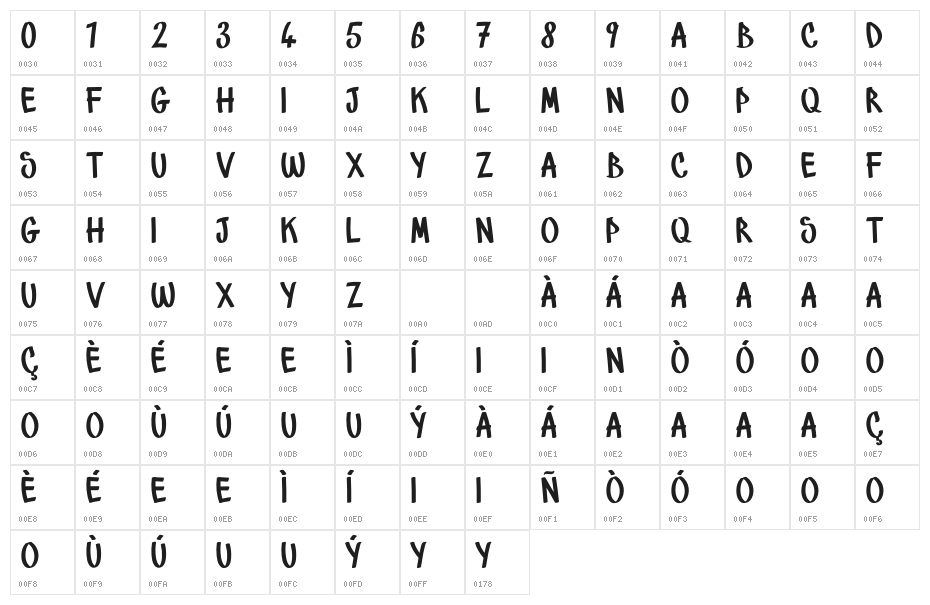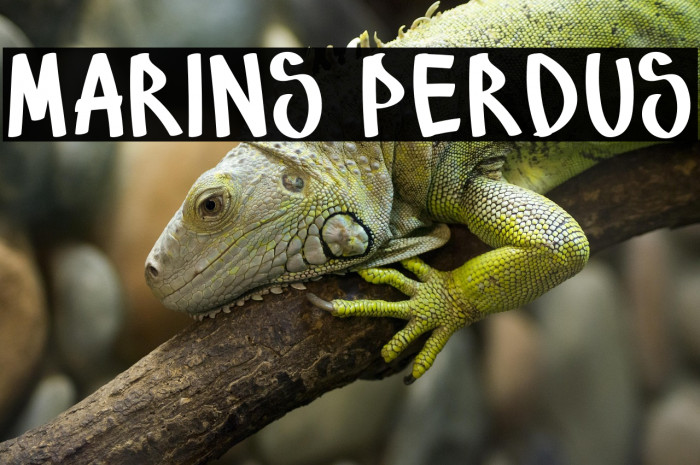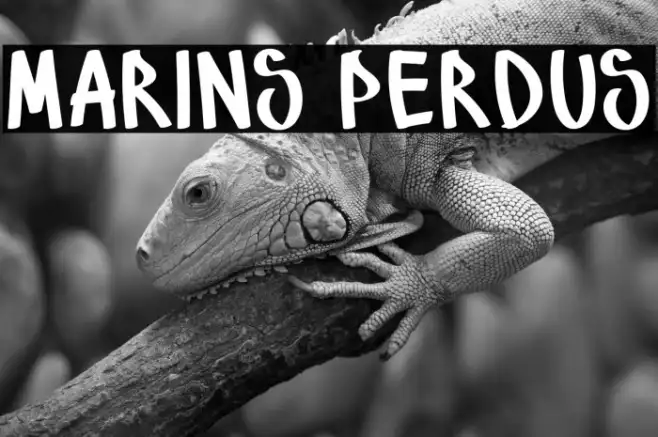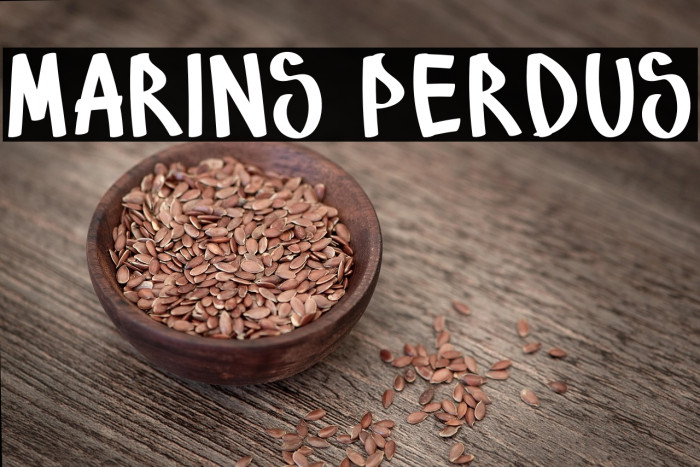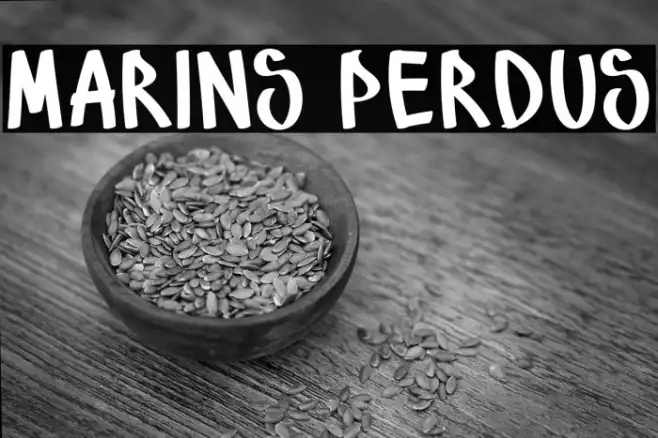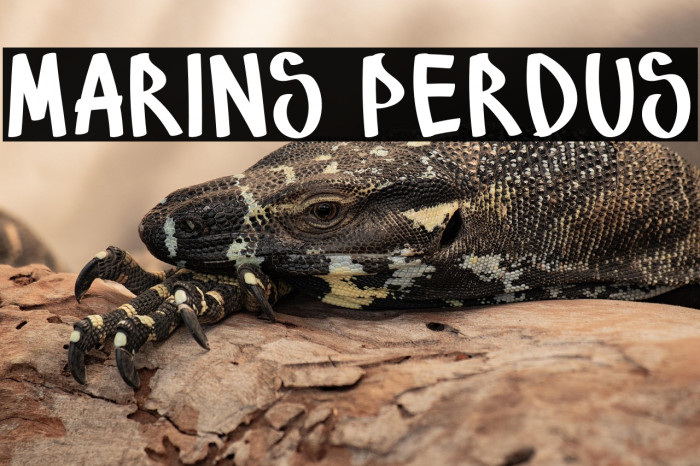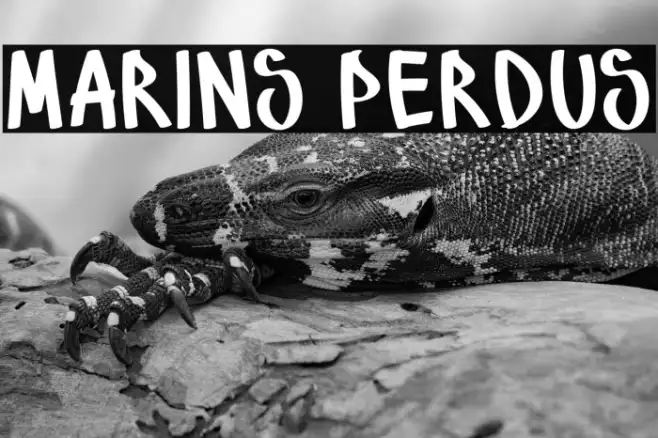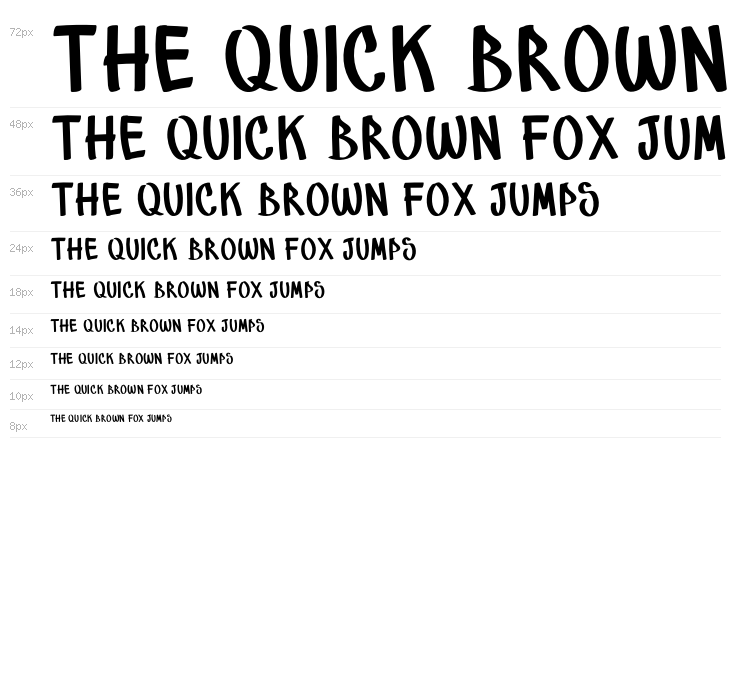
Marins Perdus Font
Marins Perdus Description
This font features a playful and bold handwritten style, characterized by its irregular strokes and dynamic flow. The letters have a casual, informal appearance, with varying stroke widths that add a sense of movement and energy. The uppercase and lowercase letters maintain a consistent style, while the numbers and special characters complement the overall design. This font's unique personality makes it stand out, offering a friendly and approachable aesthetic.
| Proposed Projects | Ideal for children's books, greeting cards, playful branding, and creative posters. |